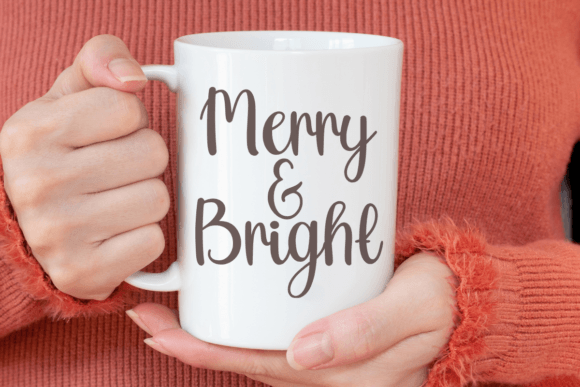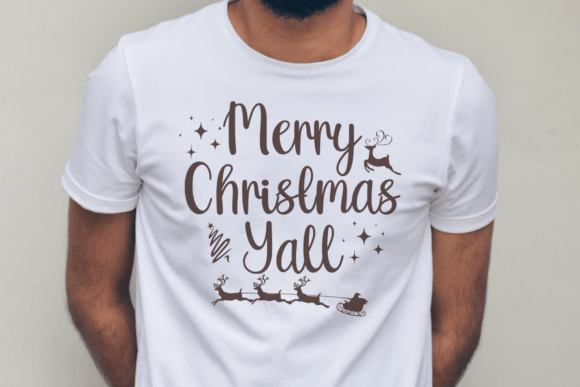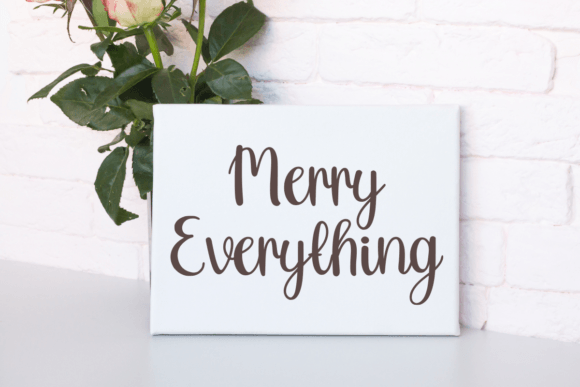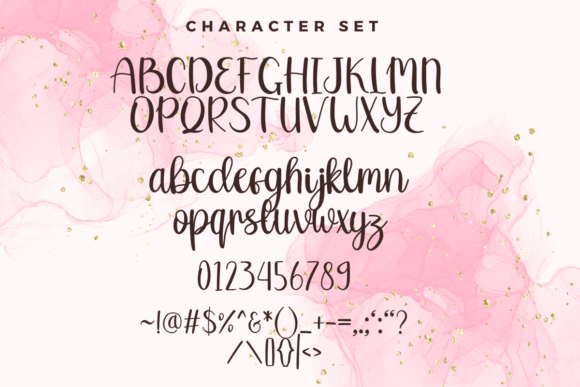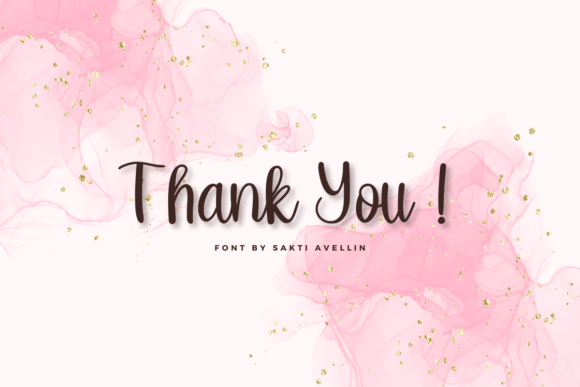
Introducing Handwritten: The Modern Script Font for Creative Designs
Are you looking for a font that can add a touch of personality and whimsy to your designs? Look no further than Handwritten, a modern script font that’s perfect for creating fun and eye-catching quotes, t-shirts, invitations, greeting cards, mugs, and more. In this article, we’ll explore the features and benefits of Handwritten, and show you how to make the most of this versatile font.
What is Handwritten?
Handwritten is a modern script font that’s designed to mimic the look and feel of handwritten text. With its flowing curves and irregularities, this font is perfect for adding a personal touch to your designs. Whether you’re creating a quote, a greeting card, or a t-shirt, Handwritten is the perfect choice for designers who want to add a bit of whimsy and personality to their work.
Key Features of Handwritten
- Unique and Quirky: Handwritten has a distinctive, hand-crafted look that’s perfect for designers who want to stand out from the crowd.
- Modern and Fresh: This font is designed with modern design trends in mind, making it perfect for contemporary designs.
- Versatile: Handwritten can be used for a wide range of design projects, from quotes and t-shirts to invitations and greeting cards.
- Easy to Read: Despite its quirky look, Handwritten is easy to read and understand, making it perfect for designs that need to communicate a message.
Uses for Handwritten
So, what can you use Handwritten for? The possibilities are endless! Here are a few ideas to get you started:
- Quotes: Add a touch of personality to your quotes with Handwritten. Perfect for social media posts, blogs, and websites.
- T-Shirts: Create eye-catching t-shirt designs with Handwritten. Great for fun, casual wear.
- Invitations: Make your invitations stand out with Handwritten. Perfect for weddings, birthday parties, and other special occasions.
- Greeting Cards: Add a personal touch to your greeting cards with Handwritten. Great for birthdays, holidays, and other celebrations.
- Mugs: Create fun and quirky mug designs with Handwritten. Perfect for coffee, tea, or hot chocolate lovers.
Tips for Using Handwritten
Here are a few tips for using Handwritten in your designs:
- Keep it Simple: Don’t overcomplicate your design. Handwritten is perfect for simple, bold designs.
- Experiment with Colors: Handwritten looks great in a range of colors. Experiment with different colors to find the perfect look for your design.
- Play with Size: Handwritten can be used in a range of sizes. Experiment with different sizes to create visual interest.
- Combine with Other Fonts: Handwritten looks great when combined with other fonts. Experiment with different font combinations to create a unique look.
Handwritten is a modern script font that’s perfect for designers who want to add a touch of personality and whimsy to their designs. With its unique and quirky look, this font is great for quotes, t-shirts, invitations, greeting cards, mugs, and more. Whether you’re a professional designer or a crafter, Handwritten is a versatile font that’s sure to inspire your creativity. So why not give it a try and see what amazing designs you can create?